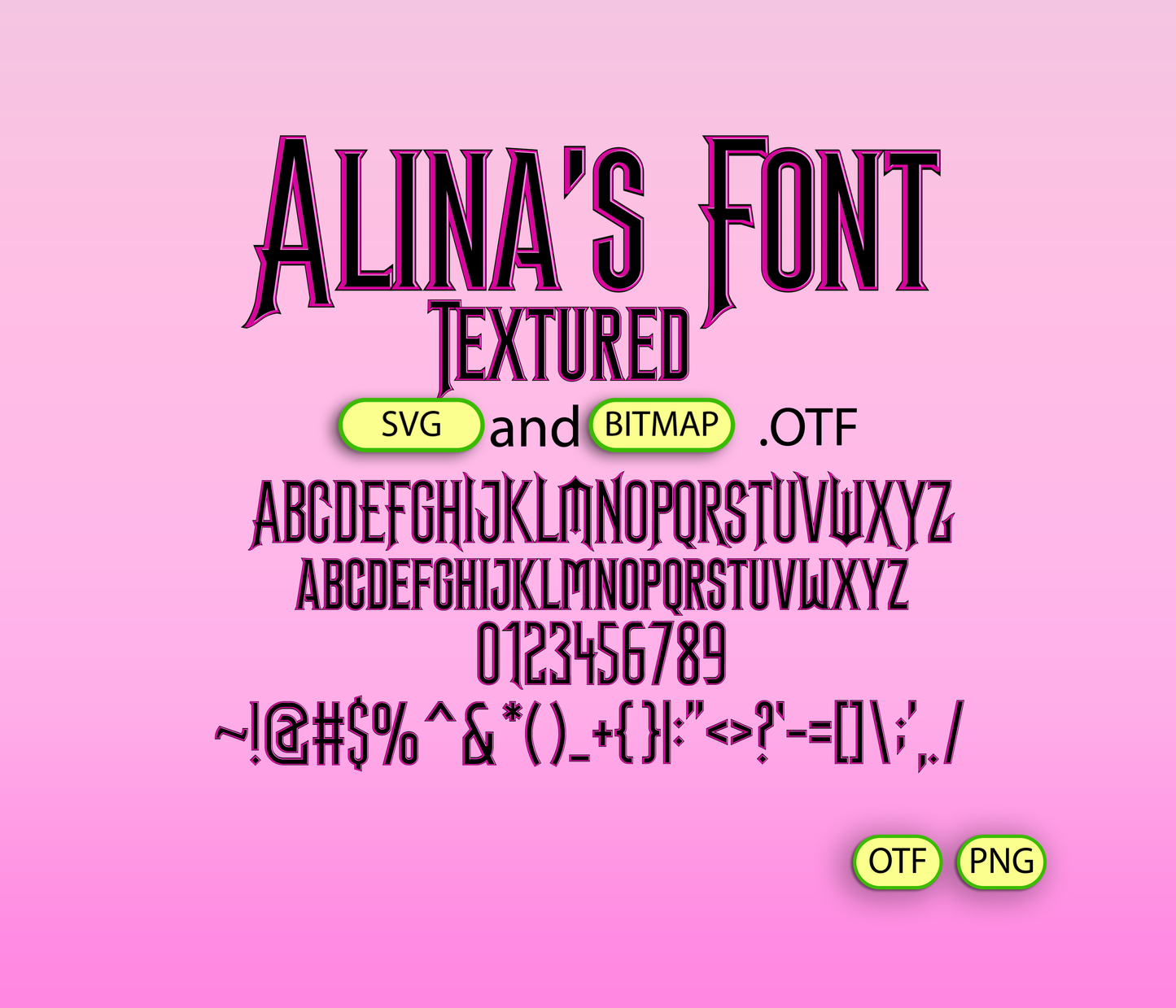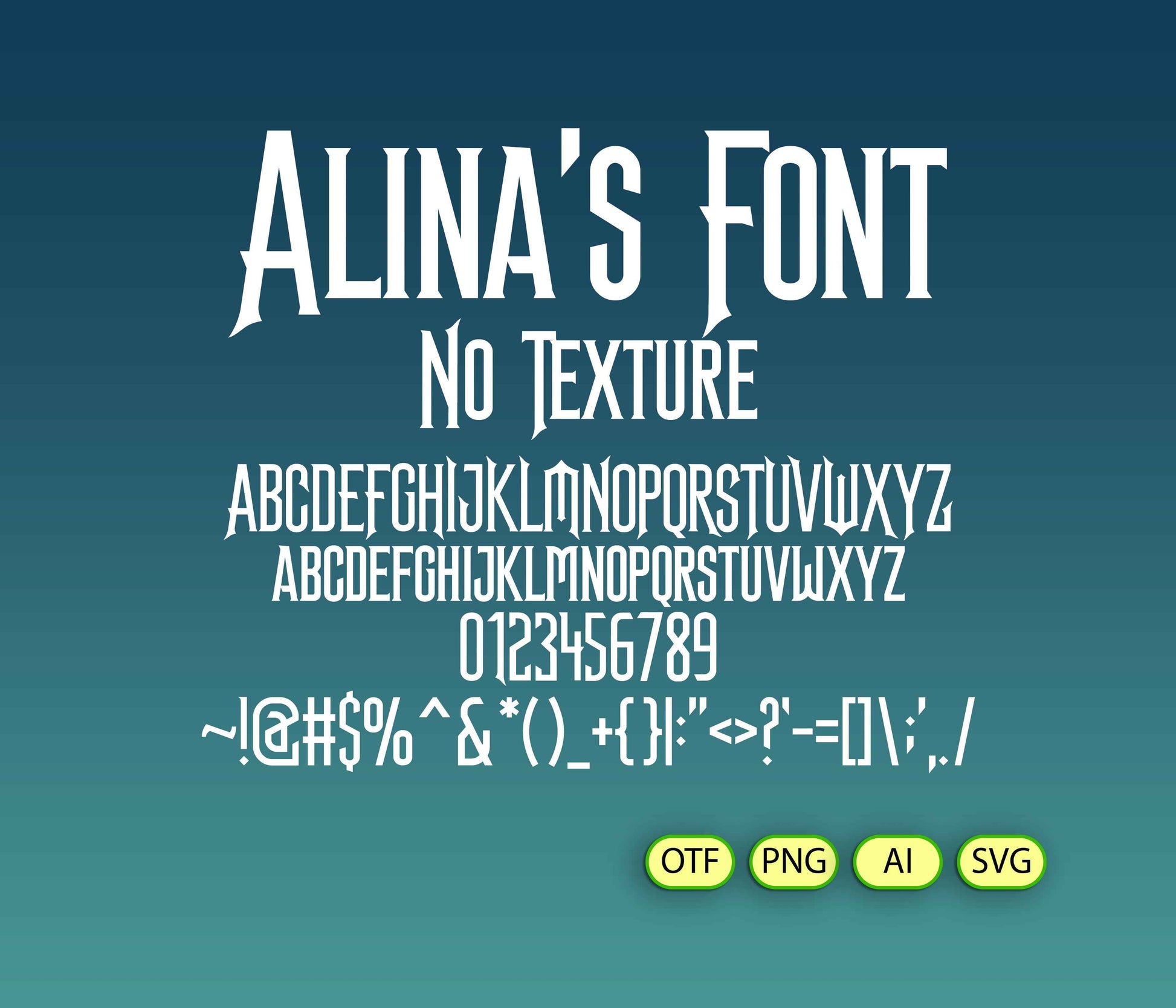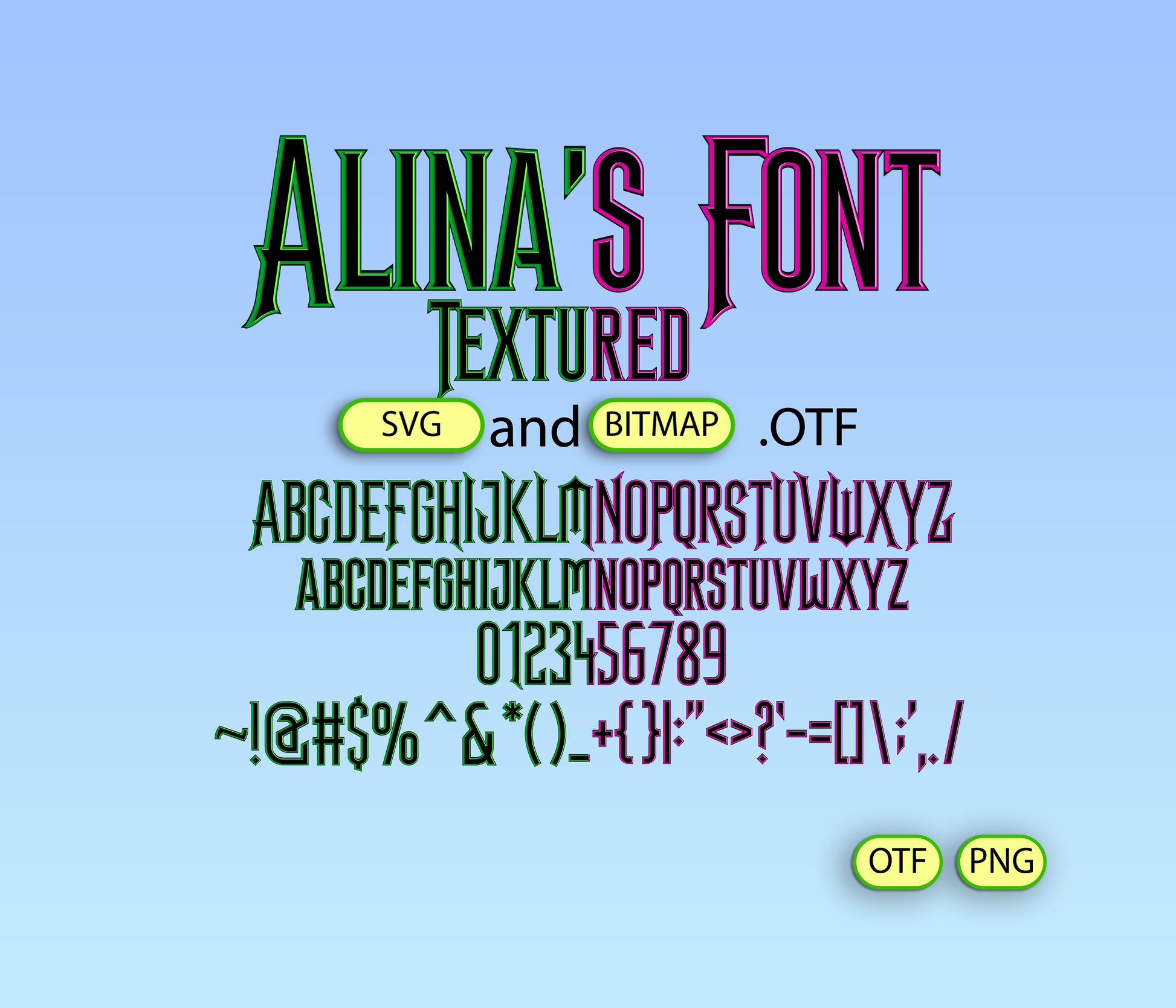
Magical Musical Enchantment Font Textured
Step into the spellbinding world of Broadway magic with our Magical Musical Enchantment font, capturing the essence of a beloved theatrical masterpiece. Perfect for theater enthusiasts, event planners, performers, and designers, this font brings the dramatic, mystical spirit of a legendary green-skinned character to your projects. Create event invitations, themed merchandise, or digital content with the powerful energy of this remarkable musical's enchanting story.
Our Magical Musical Enchantment font features elegant, dramatic lines and bewitching characters reflecting the emotional depth of this theatrical phenomenon. Ideal for:
Our Magical Musical Enchantment font includes textured and non-textured variants, ensuring compatibility with all software, including Canva. This feature allows easy incorporation into designs for users of all skill levels.
Many seek an online font generator to mimic the look of the Magical Musical Enchantment Font. Steer clear! No generator can match the quality of our font, which comes in two versions: a textured colored font and a simple version, perfect for cutting machines.
Our font pays tribute to the legendary musical, empowering your designs with its enchanting and dramatic spirit. Whether crafting promotional materials, designing merchandise, or adding a theatrical touch to personal projects, this font communicates the powerful essence of this magical story. Ready to inject Broadway enchantment into your creations? This font is your key to exciting, impactful design.